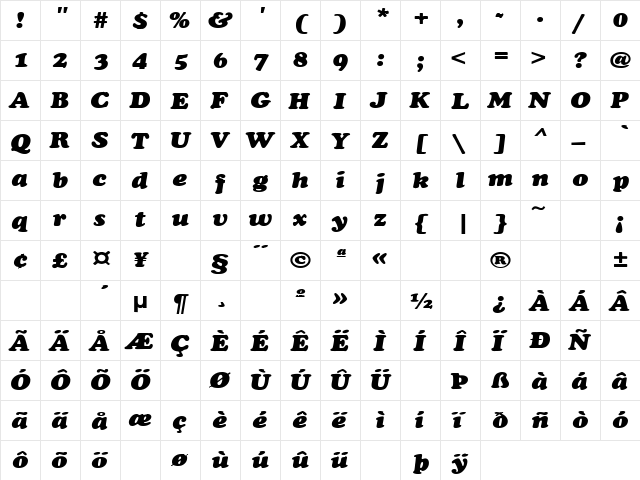
Poverty 7 Regular
Design Context for Poverty 7 Typeface
Poverty 7 is a composed and adaptable typeface that performs quietly and consistently across a wide range of design contexts.